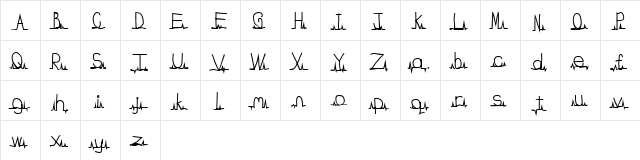
flatline Regular
Design Context for flatline Typeface
flatline is a composed and adaptable typeface that performs quietly and consistently across a wide range of design contexts.